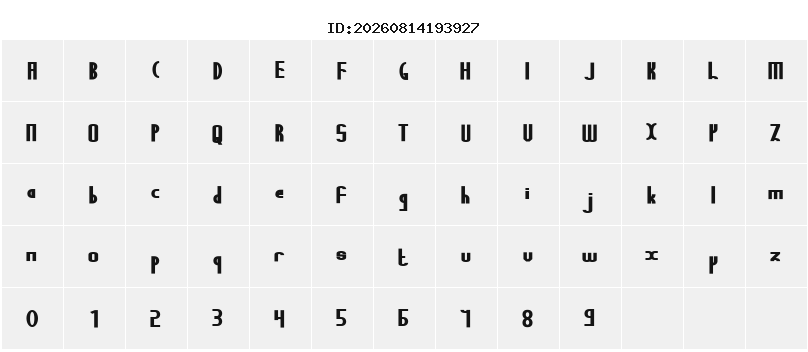
Stelefont Preview
• Font Name: Stelefont
• Full Font Name: StelefontBog
• PostScript Name: StelefontBog
About Stelefont.ttf
Stelefont.ttf is a modern, elegant sans-serif font designed for ultimate readability and visual harmony. Perfect for branding, headlines, web design, and print materials.